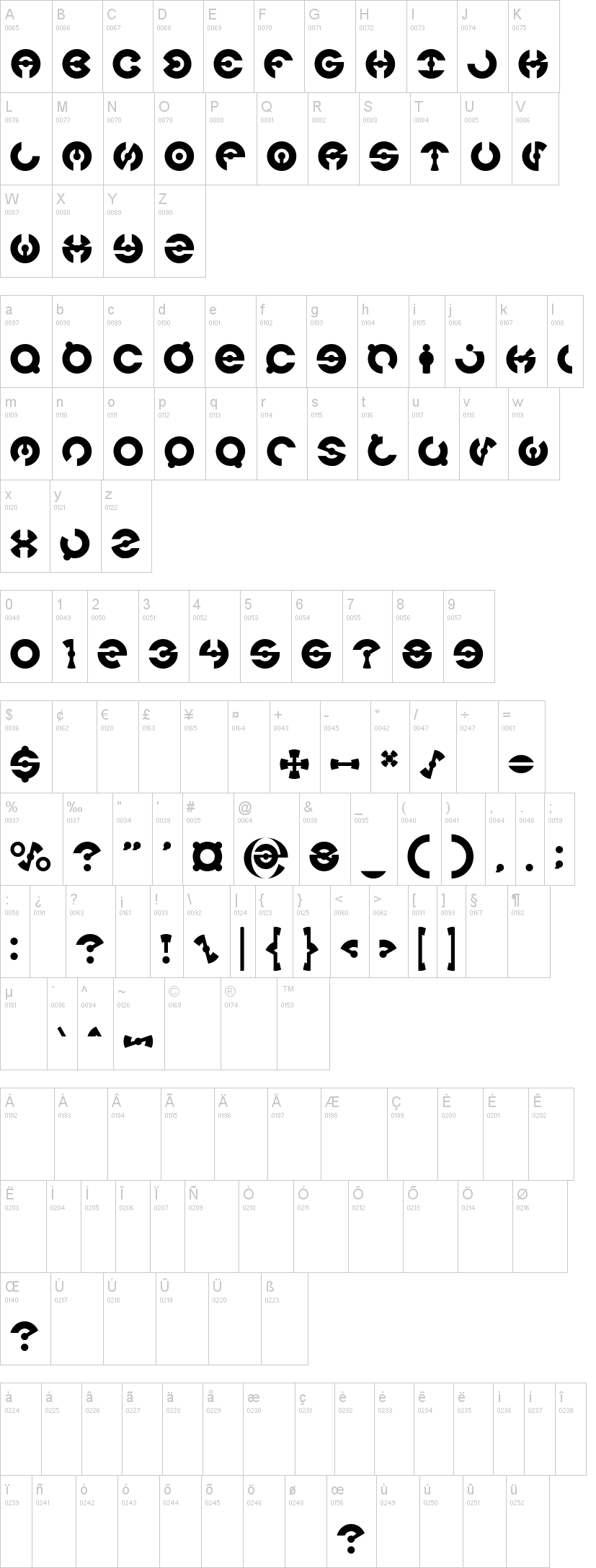
update fixing letter , capital case, lowercase, symbol, number punctuation, plus bold, italic, bold italic, hollow, inverse, hollow inverse, light, style